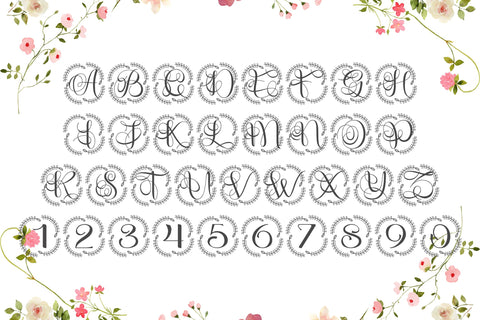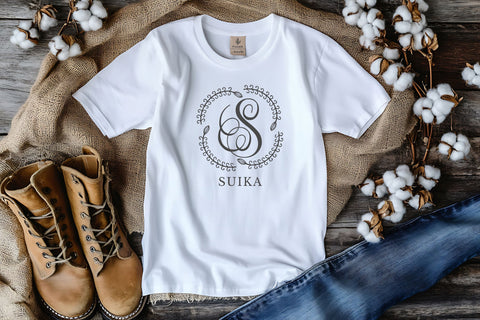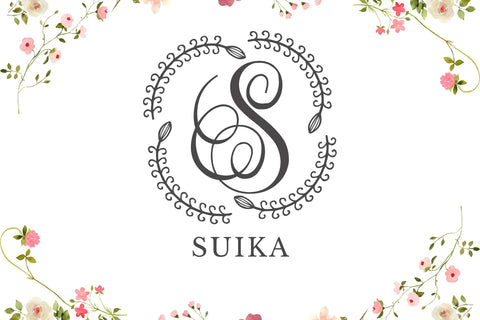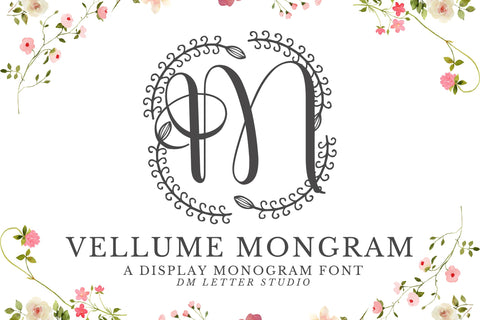
Vellume Monogram – Elegant Serif Monogram Font for Luxury Branding
Vellume Monogram is a graceful and elegant serif font designed to bring elegance and refinement to your personalized projects. Inspired by classic editorial lettering with a contemporary twist, this monogram font is ideal for upscale branding, wedding stationery, signature logos, packaging, and digital crafting. With its carefully sculpted letterforms and high-contrast strokes, Vellume Monogram adds a timeless charm and polished finish to your designs.
Each uppercase letter is drawn with subtle curves and sharp serifs, making the font feel both high-end and approachable. Its classic proportions make it suitable for everything from luxury skincare labels and boutique logos to monogrammed invitations and heirloom gifts. Whether you’re a designer creating for a fashion label or a crafter designing wedding signage, Vellume Monogram elevates your work with a refined, tailored feel.
Timeless Serif Monogram Design: Elegant and minimal uppercase characters ideal for initials and brand marks.
Versatile Usage: Perfect for logos, branding, wedding designs, gift personalization, and Cricut crafts.
Complete Character Set: A–Z uppercase, numerals, punctuation, and multilingual support.